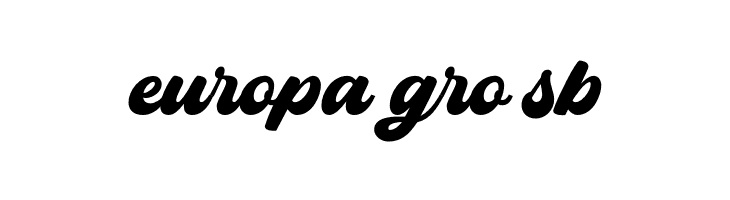
A playful, hand-drawn font with quirky, uneven strokes and dynamic letterforms.
A sleek, minimalistic font with thin, geometric lines and a modern aesthetic.
A modern, geometric font with clean lines and a minimalist style.
A bold, high-contrast serif font with angular serifs and a modern twist.
A bold, high-contrast serif font with sharp serifs and a modern twist.
A bold, high-contrast serif font with dramatic strokes and angular serifs.
A geometric, industrial-style font with tall, narrow letterforms and angular serifs.
A dynamic and elegant script font with flowing, interconnected letters.
A bold, modern sans-serif font with uniform strokes and high legibility.
A dynamic and expressive handwritten font with fluid cursive letterforms.
A bold, expressive handwritten font with fluid, cursive letterforms.
A playful, hand-drawn script font with interconnected letters and a whimsical style.
A delicate, elegant script font with flowing, interconnected strokes.
An elegant, flowing script font with interconnected letterforms.
A playful, handwritten font with looping, interconnected strokes.
A delicate, elegant script font with thin, flowing lines and a handwritten appearance.
A playful, whimsical script font with flowing, interconnected letterforms.
A delicate, flowing script font with a whimsical, hand-drawn appearance.
A graceful and flowing script font with elegant curves and playful loops.
A playful and whimsical script font with looping, flowing letterforms.
A delicate, thin script font with elegant, flowing lines and whimsical loops.
A lively, expressive handwritten font with dynamic strokes and artistic flair.
A whimsical and artistic font with flowing, interconnected strokes.
A whimsical and artistic font with dynamic curves and angles.
A whimsical and playful font with artistic curves and swirls.
A modern, elegant script font with flowing curves and loops.
A playful, rounded font with bold, smooth curves.
A graceful, handwritten script font with elongated, flowing strokes.
An elegant, cursive script font with fluid, interconnected strokes.
A playful, handwritten font with smooth, rounded edges and a casual style.
A flowing, cursive script font with elegant, connected characters.